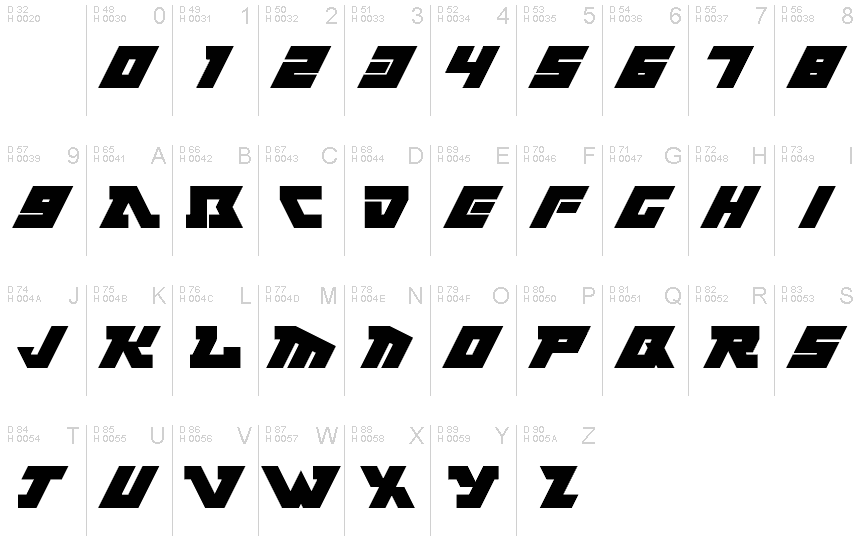
Layla
Layla by Xerographer Fonts is a bold, futuristic display typeface that exudes a striking technological aesthetic. The expanded letterforms and sharp, angular lines convey a sense of precision and modernity, making this font an eye-catching choice for a range of design projects. Layla's bold presence and distinct character lend themselves well to headlines, branding, and other high-impact visual applications.
This versatile font can elevate the visual impact of diverse design contexts, from digital interfaces and product packaging to event materials and editorial layouts. Its bold, techno-inspired personality makes Layla an excellent selection for projects seeking to communicate a futuristic, cutting-edge narrative, whether in the realms of technology, science, or contemporary visual culture.